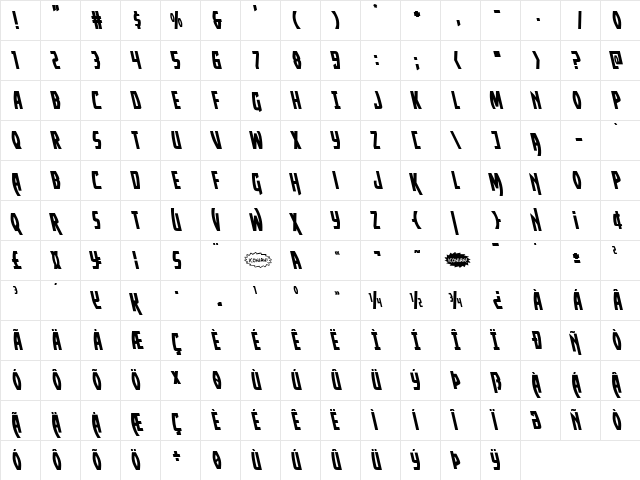
Yankee Clipper Leftalic Italic
Design Context for Yankee Clipper Leftalic Typeface
Yankee Clipper Leftalic is a composed and adaptable typeface that performs quietly and consistently across a wide range of design contexts. Its italic angle brings a sense of urgency and motion to the letterforms.
Pro Tip: Use Yankee Clipper Leftalic for emphasis, pull quotes, and subheadings where its slanted energy can add rhythm to the layout.